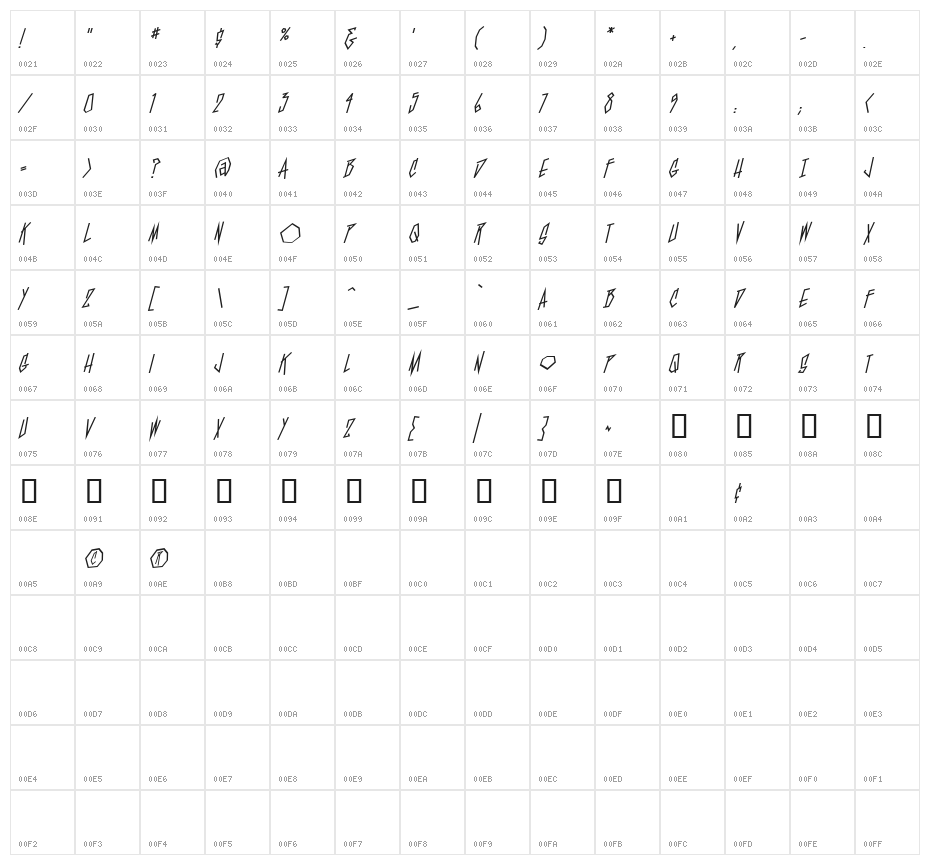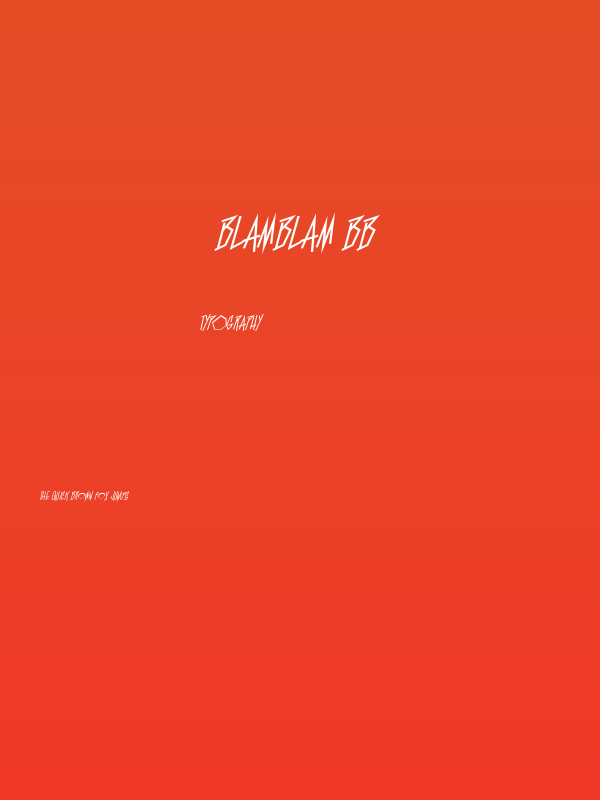
BlamBlam BB Font
BlamBlam BB Description
This font features a dynamic and edgy style with sharp, angular lines that create a sense of movement and energy. The characters are slightly slanted, giving them a forward-leaning appearance that enhances the font's aggressive and bold personality. Each letter is uniquely crafted with pointed edges and varying line thickness, contributing to a high-contrast look. The numbers and special characters maintain this distinct style, ensuring consistency across all glyphs. This font is ideal for projects that require a strong visual impact and a modern, rebellious aesthetic.
| Overall Style | Modern, Edgy |
| Proposed Projects | Ideal for music album covers, sports team branding, video game titles, and edgy fashion labels. |